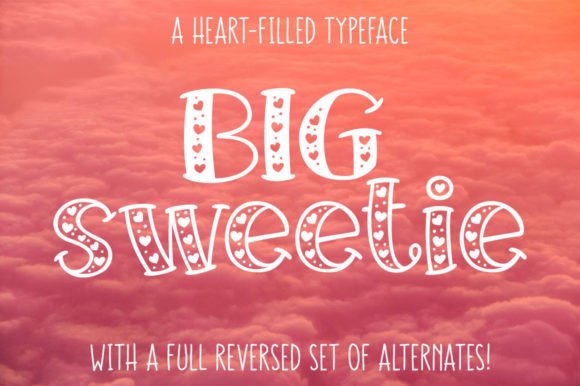
Introducing the Big Sweetie Font, a whimsical and heartwarming handwritten serif font that's bursting with love and charm. This captivating display font is a labor of love from GeekMissy, meticulously crafted to bring a touch of sweetness to your designs.
With Big Sweetie, you get two fonts in one: a standard alphabet with a charming hollowed-out effect, filled with a delightful pattern of hearts and polka dots, and a set of solid stylistic alternate letters that echo the same playful motifs. But that's not all – Big Sweetie also includes a delightful selection of smaller catchwords, such as "the," "and," "or," "for," "from," and more, all available in both hollow and solid versions.
Created with versatility in mind, Big Sweetie is perfect for adding a personal touch to various projects, from heartwarming invitations and cards to eye-catching social media posts and website headers. Its charming aesthetics will add a dash of sweetness to any design, leaving a lasting impression on your audience.
With Big Sweetie, you'll have access to a comprehensive font family that includes over 420 glyphs, ensuring you have all the characters you need to create captivating designs. It also features over 200 accented characters, providing support for multiple languages, including English, French, Spanish, German, Polish, and many more.
So, if you're looking for a font that radiates warmth, charm, and a touch of whimsy, Big Sweetie is the perfect choice. Its versatility, extensive character set, and user-friendly file formats make it ideal for a wide range of creative projects. Embrace the sweetness and let Big Sweetie add a touch of love to your designs today!